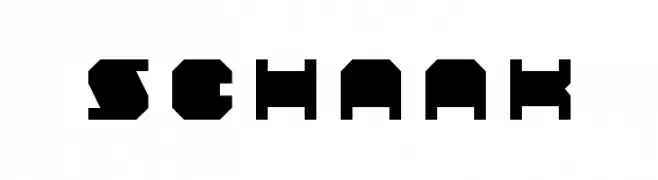
A playful, decorative font with a textured, hand-drawn style.
A playful font with teddy bear illustrations integrated into bold, rounded letters.
A bold, geometric font with a modern, futuristic style.
A classic, elegant script font with flowing cursive letterforms.
A distressed, grunge-style font with a bold, hand-drawn appearance.
A cursive, handwritten font with smooth, connected letters and a classic school script style.
A rugged, distressed font with a bold, grungy texture and irregular edges.
A distressed, graffiti-like font with jagged, uneven strokes and a rebellious aesthetic.
A geometric, modern font with clean lines and a futuristic style.
A playful, hand-drawn font with bold, irregular strokes and a whimsical style.